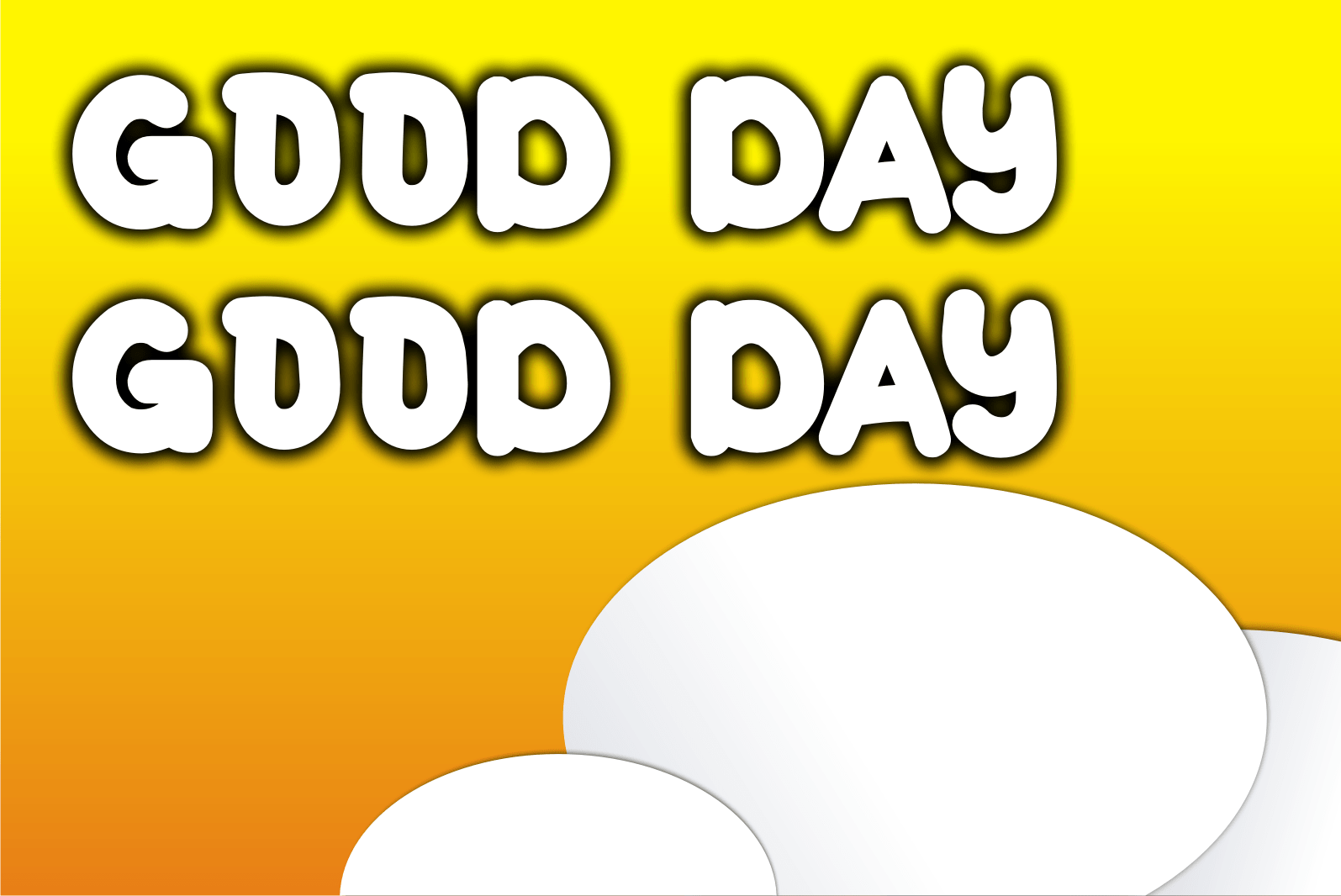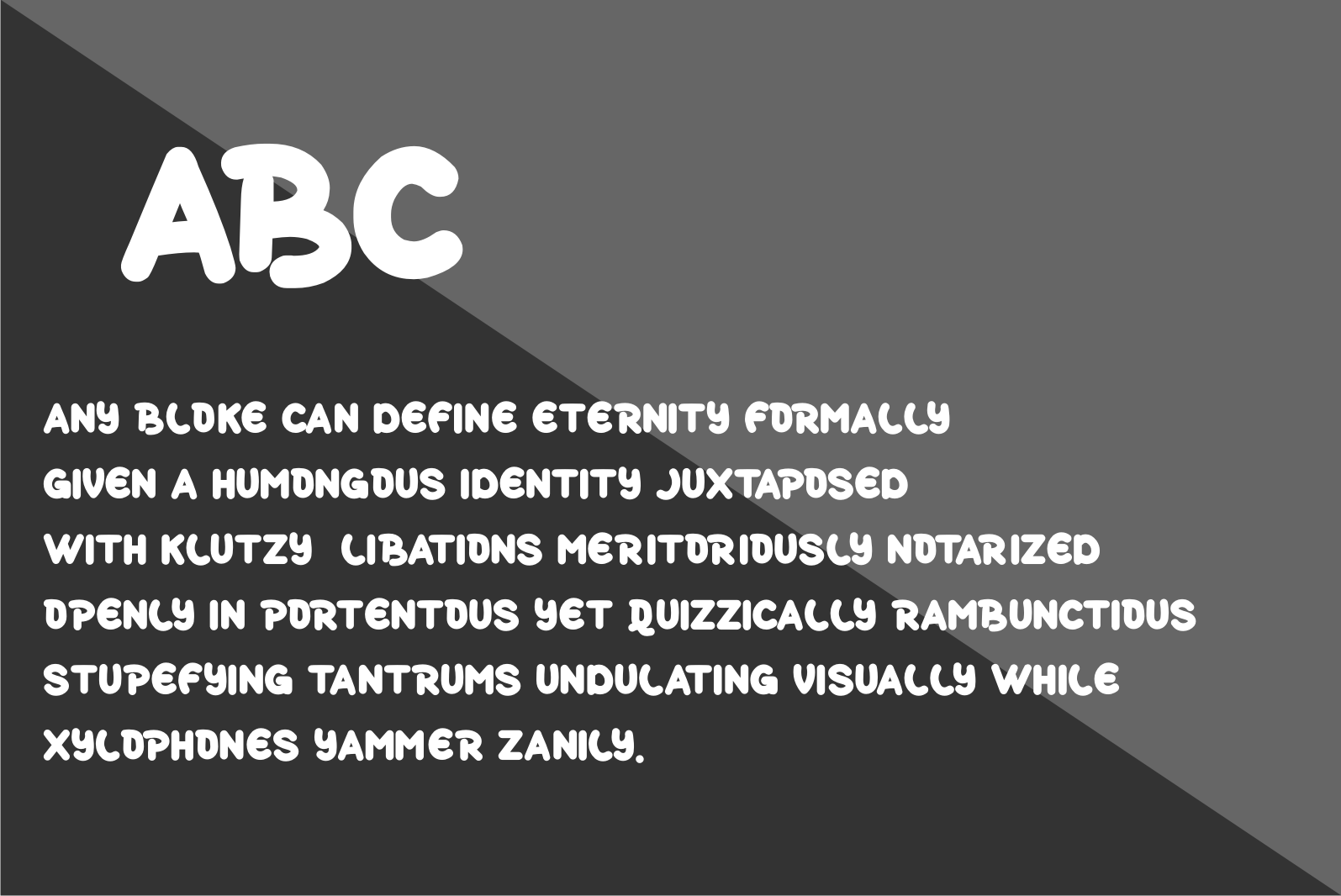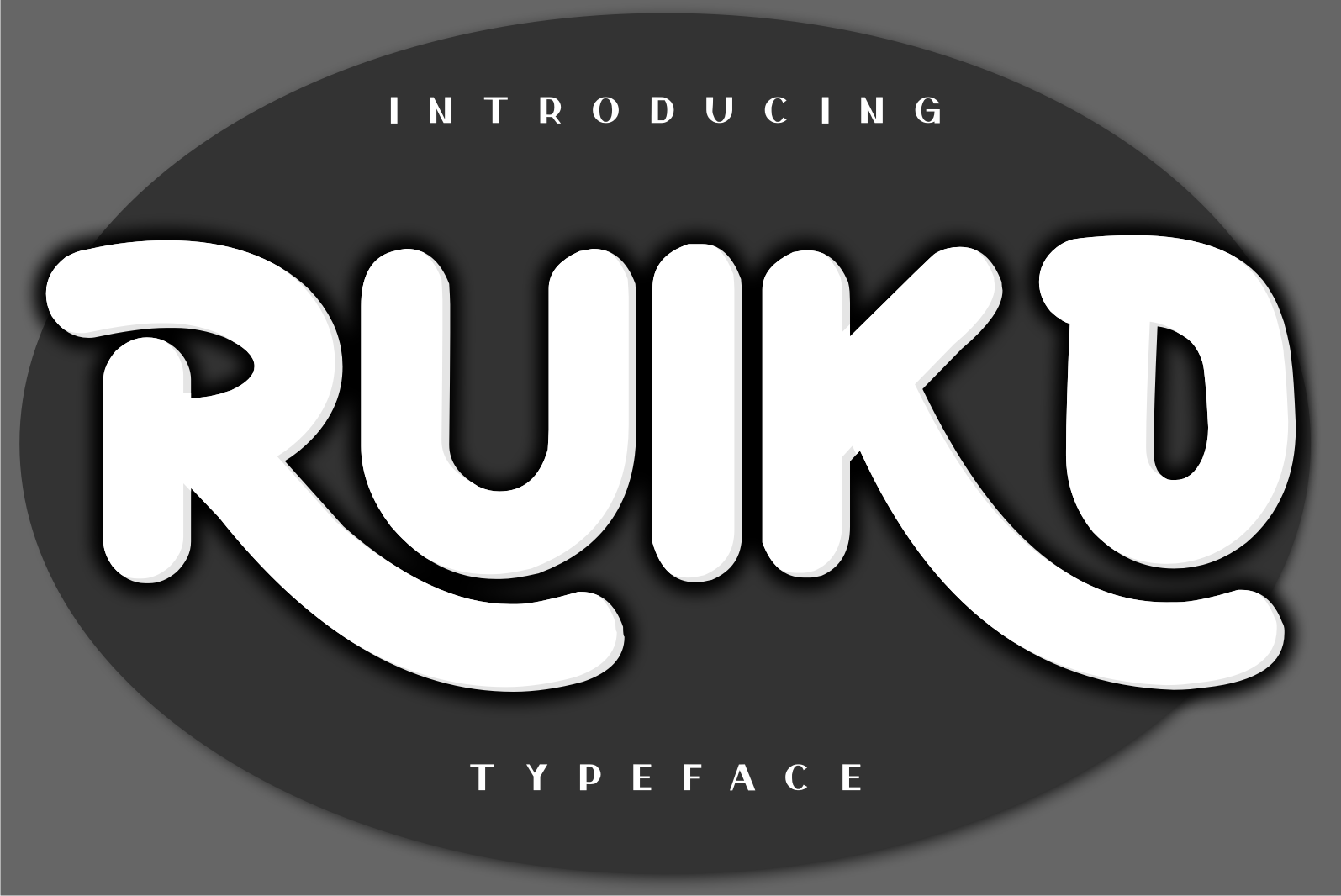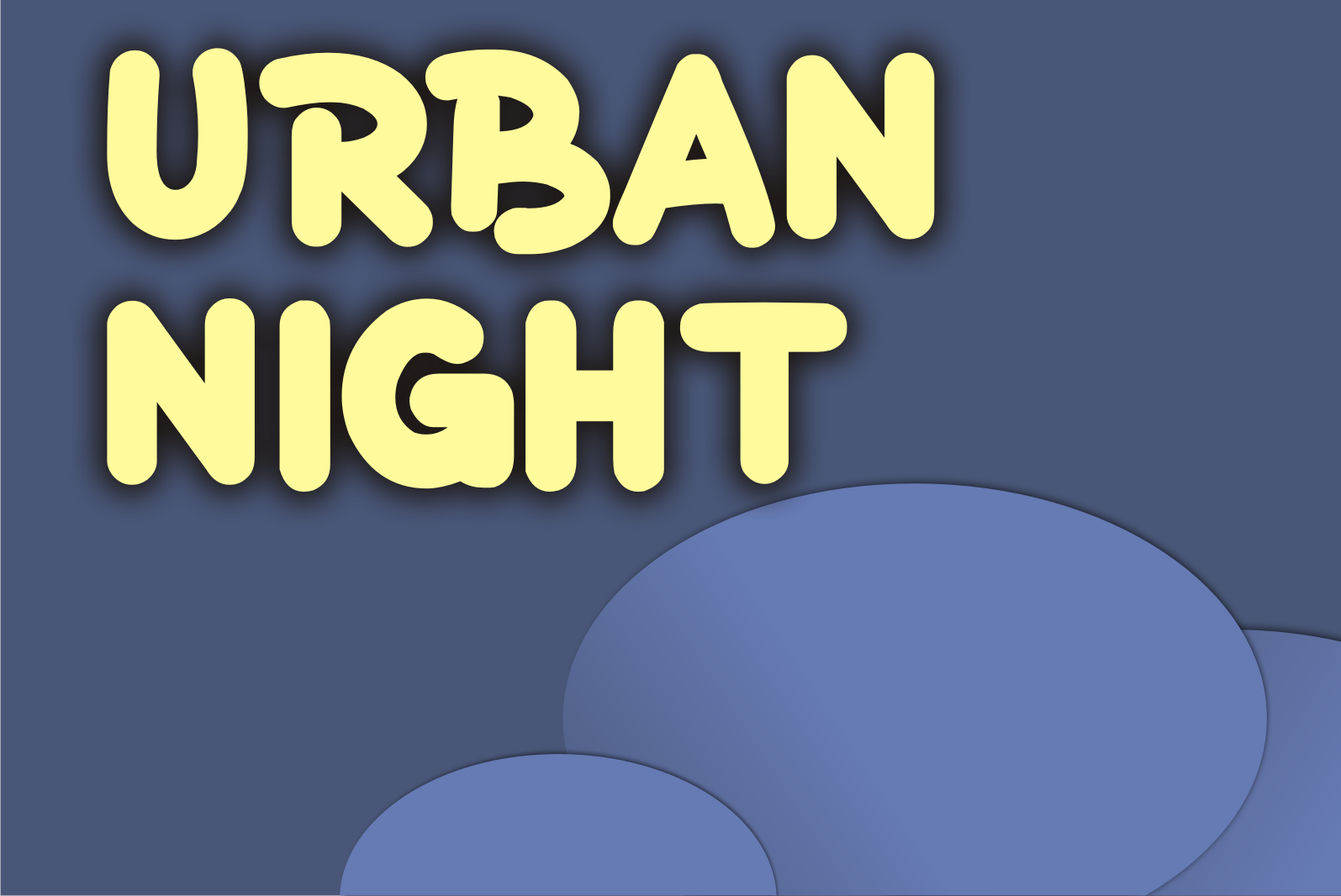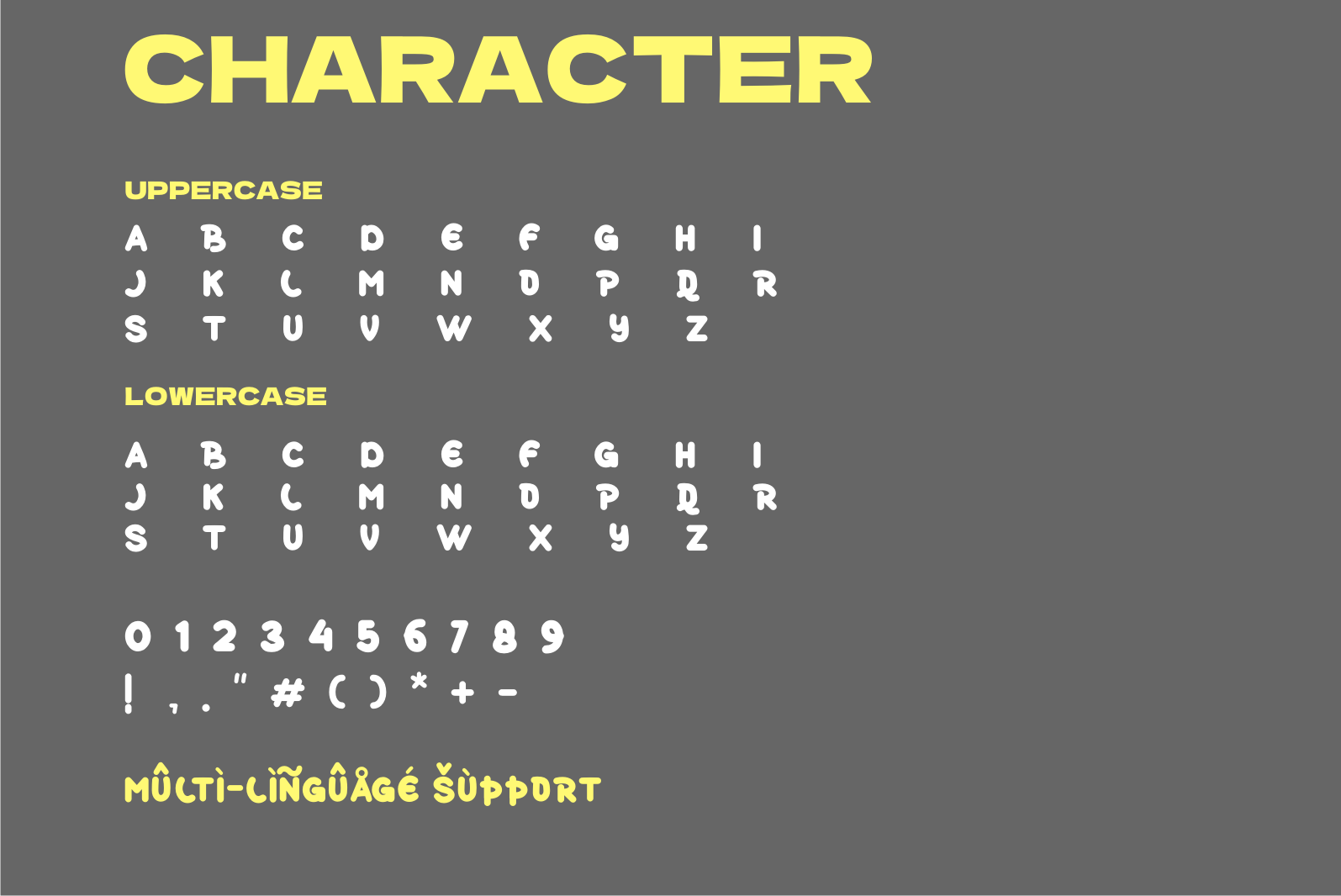
Ruiko Display Font
It’s a cool and trendy-looking display font. This font is great for logos, badges, clothing, posters, and other projects that need to stand out from the crowd.